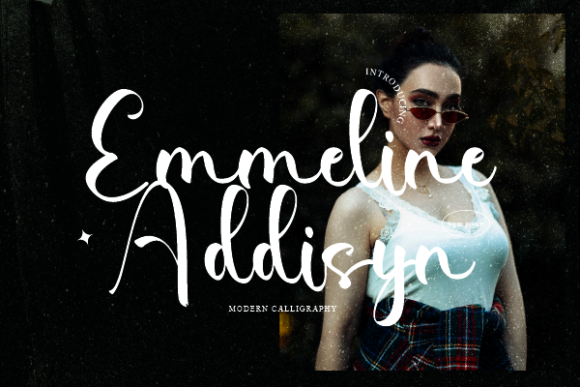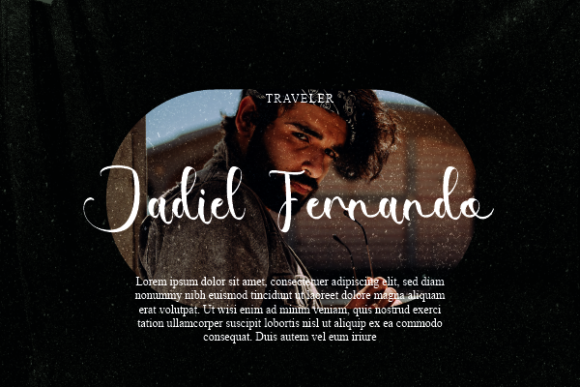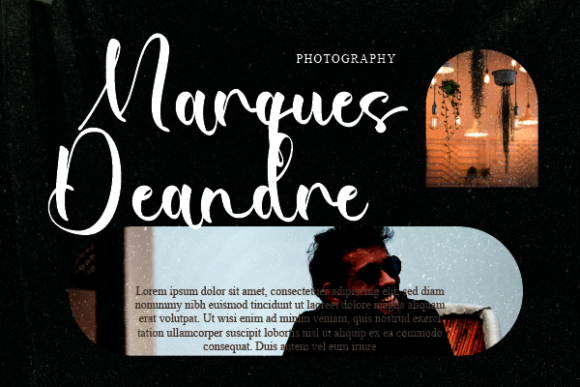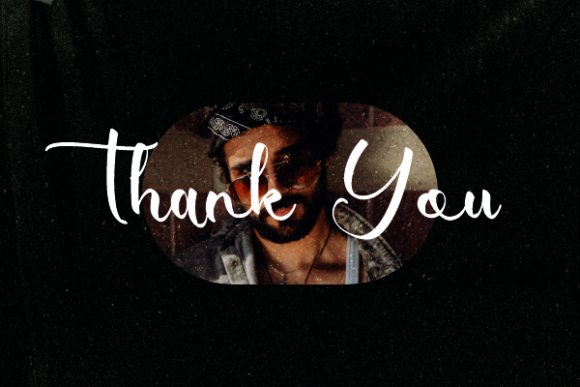
About Emmeline Addisyn Font
Emmeline Addisyn is a sophisticated and stylish script font that brings an air of delicacy and fashion to your creative ventures. With its graceful and flowing letterforms, this font is a perfect choice for a wide range of design applications, from logos and branding projects to t-shirt printing, creative products, and beyond.
The carefully crafted characters of Emmeline Addisyn give your designs a unique and extraordinary flair. Whether you’re working on a high-end fashion brand, crafting an eye-catching logo, or designing trendy t-shirt prints, this font adds a touch of elegance and sophistication that sets your projects apart.
Emmeline Addisyn’s versatility allows it to shine across various contexts, ensuring that your designs stand out in both print and digital media. Its delicate strokes and well-balanced forms create a harmonious visual appeal that captivates the viewer’s attention.
By using Emmeline Addisyn in your projects, you’re able to convey a sense of refined taste and modern elegance. Its PUA encoding further enhances its flexibility, providing you with access to a wide array of glyphs and special characters. This feature enables you to explore endless design possibilities and create truly personalized and exceptional pieces of art.
In summary, Emmeline Addisyn isn’t just a font – it’s a design tool that empowers you to infuse your projects with sophistication and allure. Whether you’re aiming for impactful branding, captivating t-shirt prints, or any other creative endeavor, this font ensures that your work exudes a distinctive charm that leaves a lasting impression on your audience.